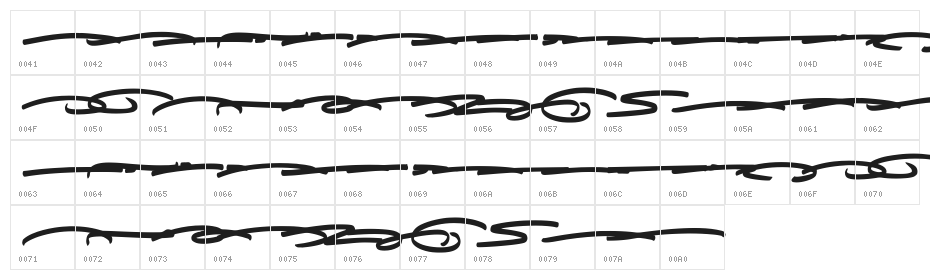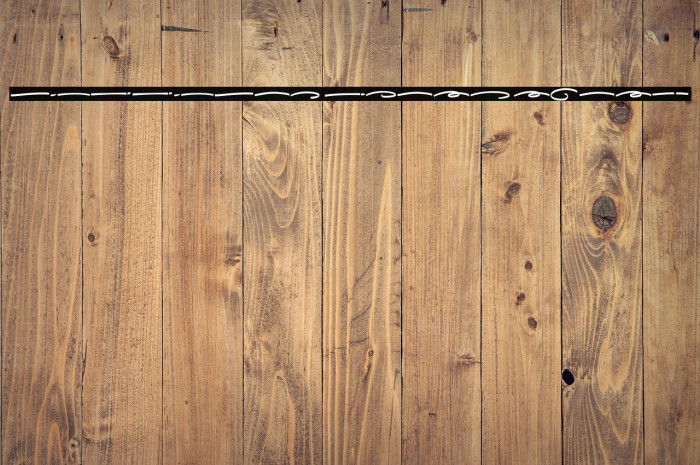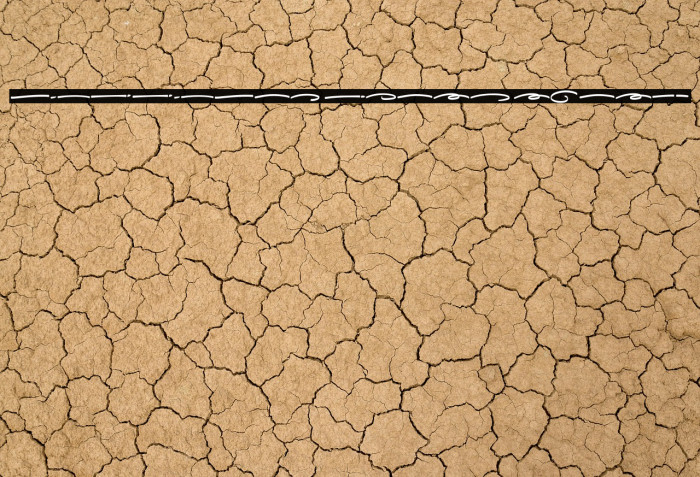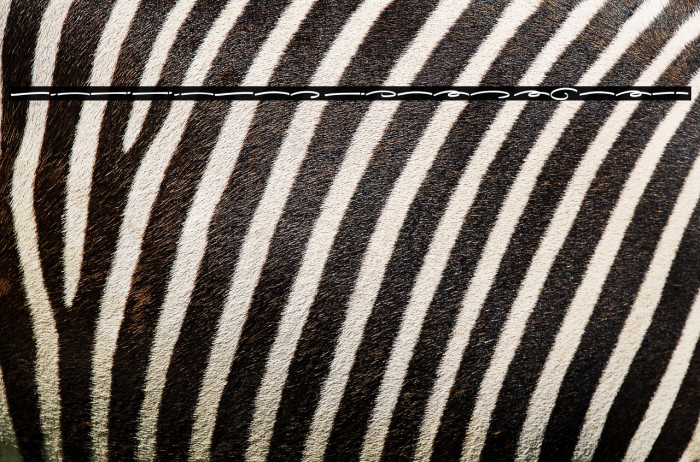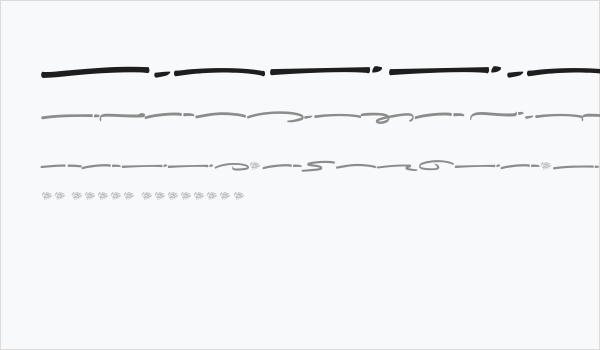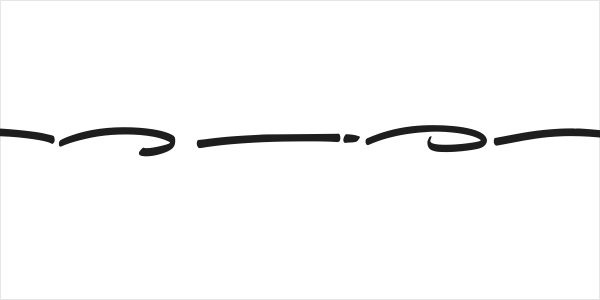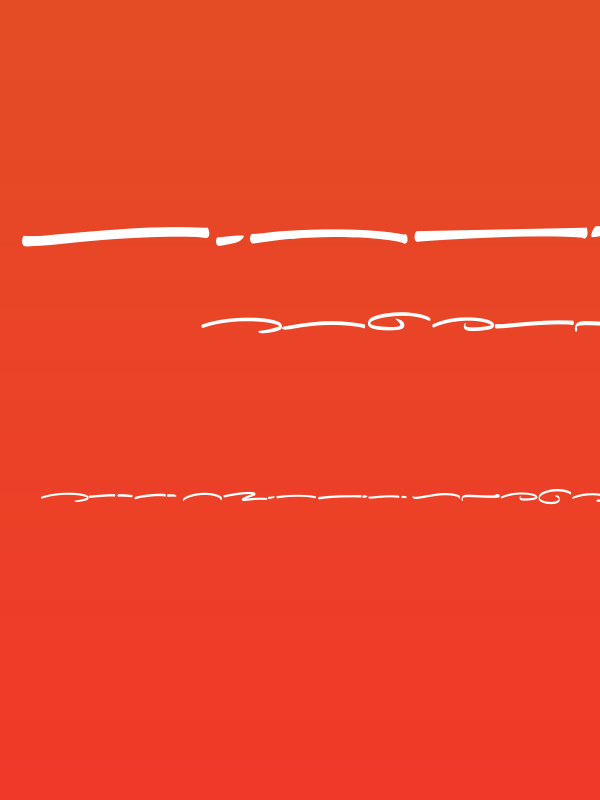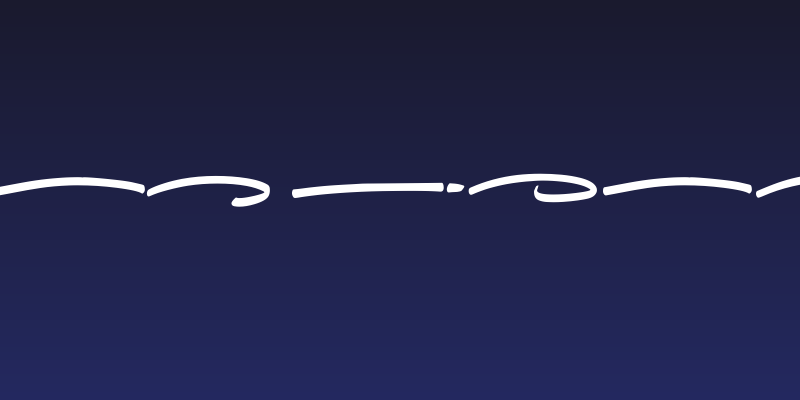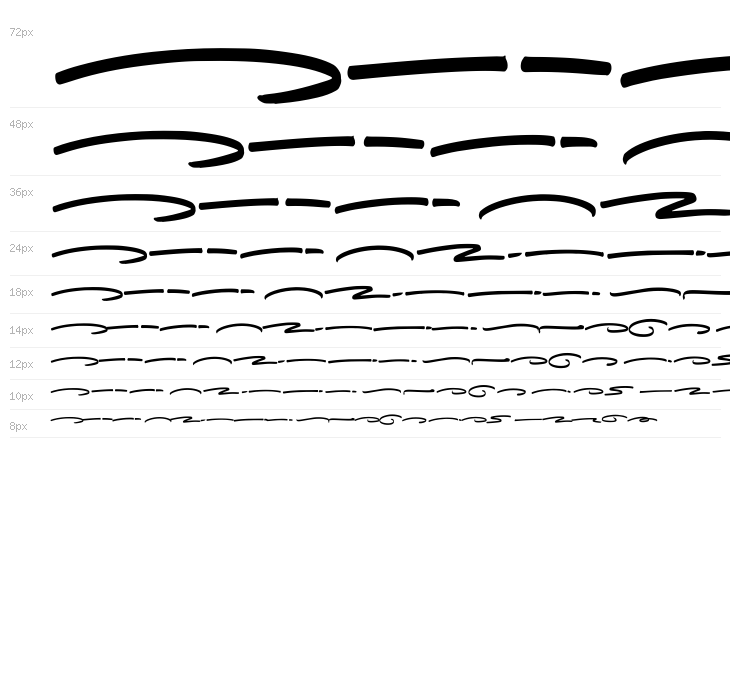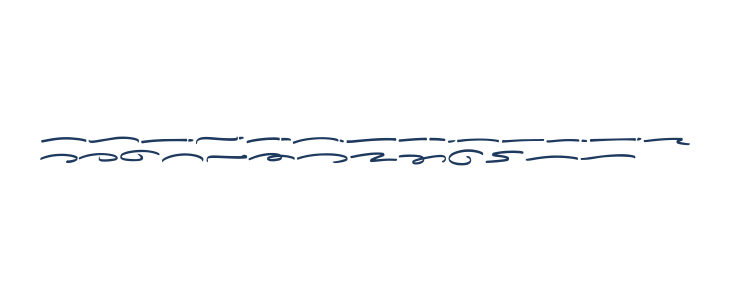
Gilligan Coast Swash Font
Gilligan Coast Swash Description
This font features a whimsical and decorative style, characterized by its elegant swashes and flowing lines. The characters are interconnected with graceful curves, giving it a sense of movement and fluidity. The design is reminiscent of calligraphy, with each letter crafted to create a harmonious and artistic appearance. The font's intricate details and flourishes make it ideal for projects that require a touch of elegance and sophistication. Its unique style is perfect for creating eye-catching designs that stand out.
Use CaseLogos, Invitations, Decorative text
Proposed ProjectsIdeal for wedding invitations, greeting cards, branding, and decorative posters.